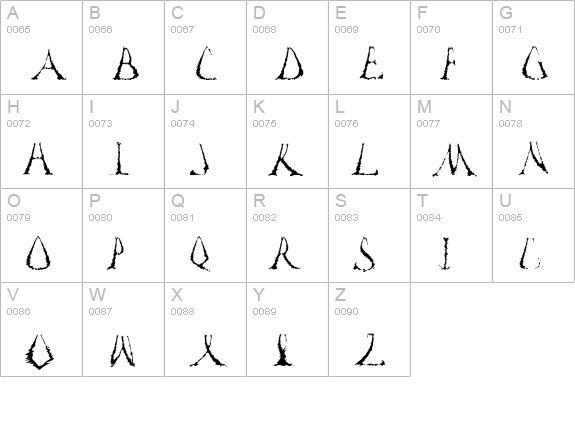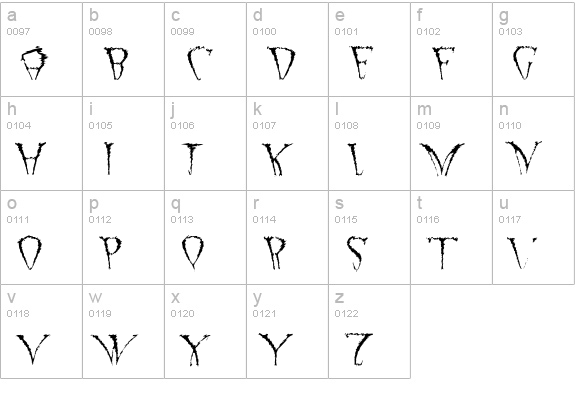
Funko Occelatus Font Details
Funko Occelatus font is a whimsical and playful typeface that exudes a sense of fun and creativity. With its unique design and charming characteristics, this font is perfect for adding a touch of personality to your projects. The curvy lines and quirky shapes make Funko Occelatus font a standout choice for any design that aims to stand out from the crowd. What's even better is that Funko Occelatus font is available for free download at FontsMarket.com. This means that you can easily access this delightful font and use it in your projects without any cost. Whether you're working on a fun poster, a creative logo, or a stylish social media graphic, Funko Occelatus font is sure to add a cheerful and eye-catching element to your design. Download it now and let your creativity shine with this charming and free font option.